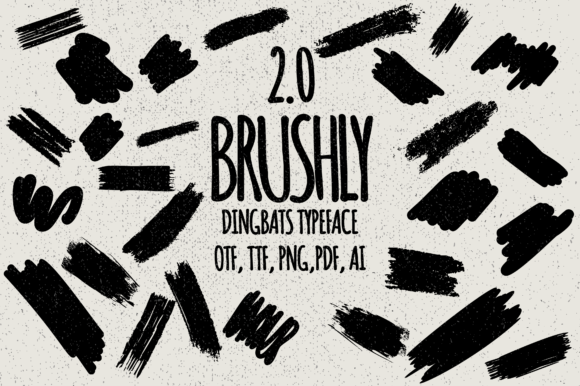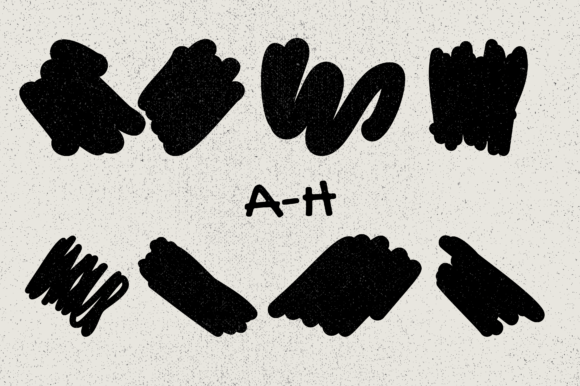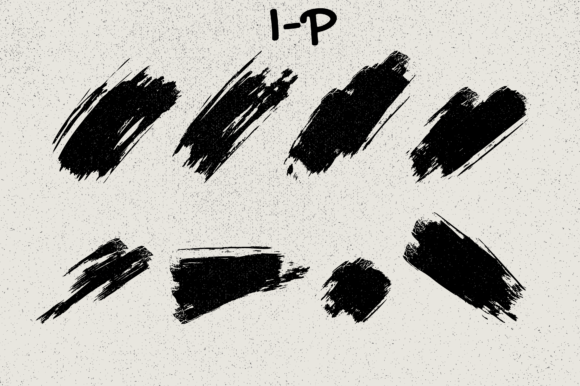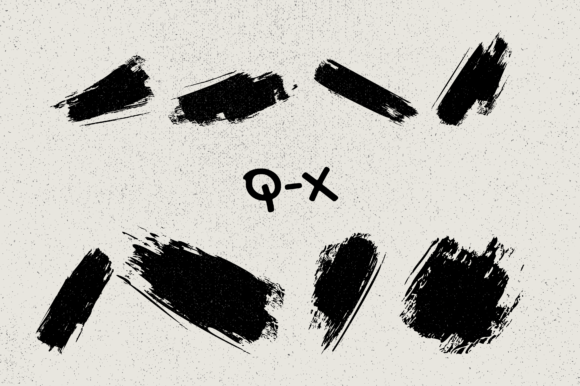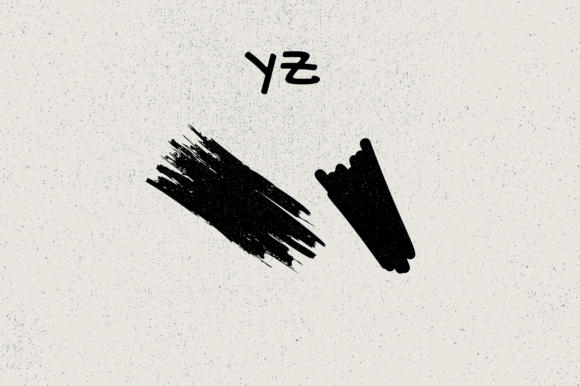
Brushly 2.0 Font
About Brushly 2.0 Font
Brushly 2.0 is a delightful and versatile dingbats typeface that offers 62 unique brush stroke glyphs to enhance your designs. With its cute and artistic style, this font can add a touch of creativity and playfulness to your favorite projects.
The brush strokes in the Brushly 2.0 font are designed to emulate the texture and movement of hand-painted brush strokes. Each glyph captures the unique characteristics of brush strokes, from their varying thickness to their expressive curves and angles.
By typing capital letters, small letters, and numbers, you can easily access and utilize the diverse range of brush stroke glyphs available in the font. This allows you to experiment and combine different strokes to create visually appealing compositions.
Whether you’re working on digital designs, print materials, or even handmade crafts, Brushly 2.0 can be a valuable asset. It can be used to add artistic accents, create custom backgrounds, or emphasize specific elements in your designs.
The cute and playful nature of the Brushly 2.0 font makes it suitable for a wide range of creative projects. You can use it in children’s illustrations, greeting cards, posters, social media graphics, and more. Its versatility allows you to adapt it to various design styles and themes.
When using the Brushly 2.0 font, consider the overall aesthetic and mood you want to convey. The brush strokes can add a dynamic and organic feel to your designs, creating a sense of energy and movement. Experiment with different colors, sizes, and combinations of brush strokes to achieve the desired effect.
Furthermore, the Brushly 2.0 font can be an excellent tool for handmade crafts and DIY projects. You can use it to create custom labels, decorate journals or scrapbooks, and add personal touches to gift items.
In summary, Brushly 2.0 is a cute and versatile dingbats font that offers 62 brush stroke glyphs to enhance your designs. Whether you’re working on digital or physical creations, this font can bring a playful and artistic element to your favorite projects. So, add Brushly 2.0 confidently to your creative endeavors and let the unique brush strokes amaze you with the delightful outcomes they generate!